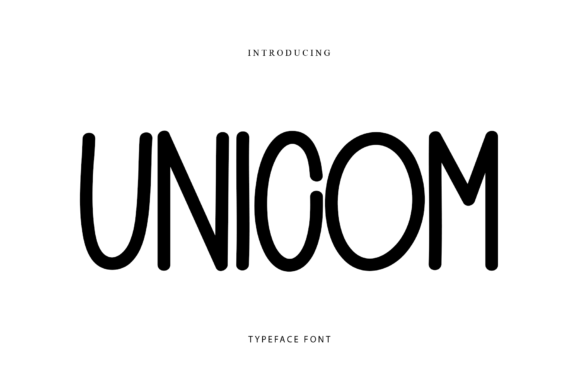
Unicom: A Bold, All-Caps Display Font
Unicom is more than just a font—it's a design choice that brings clarity, confidence, and style to any project. With its bold, all-caps structure, it offers a modern aesthetic that stands out without overwhelming the viewer. Whether you're working on a presentation, a digital design, or a handmade card, Unicom adds a touch of sophistication that feels both fresh and professional.
This font isn't about being loud; it's about being effective. Its clean lines and consistent weight make it highly readable, even at smaller sizes. This makes it ideal for headings, titles, and key messages where visual impact matters. For professionals and creatives alike, Unicom can be a powerful tool in communicating ideas with precision and flair.
Why Unicom Matters in Design
In a world filled with countless font options, choosing the right one can feel overwhelming. Unicom simplifies this decision by offering a balance between trendiness and practicality. It’s not too flashy, but it’s not plain either. This middle ground makes it versatile enough for a wide range of applications while still standing out when needed.
For designers, Unicom can serve as a go-to font for projects that require a strong visual presence. Its all-caps format ensures that every letter is equally emphasized, which can be especially useful in branding or signage where clarity is essential. When used thoughtfully, it can help reinforce a brand’s identity or highlight important information without distracting from the overall message.
Entrepreneurs and small business owners may find Unicom particularly useful for marketing materials, social media posts, or website headers. Its boldness commands attention, making it an excellent choice for headlines or call-to-action buttons. At the same time, its simplicity allows it to blend well with other design elements, ensuring that the focus remains on the content rather than the typography.
Practical Benefits of Using Unicom
One of the most significant advantages of Unicom is its ability to enhance readability. Unlike some stylized fonts that sacrifice legibility for aesthetics, Unicom maintains a clear and structured form. This makes it ideal for situations where the audience needs to quickly grasp the message, such as in presentations or informational graphics.
For educators and trainers, Unicom can be a valuable asset in creating visually engaging slides or handouts. Its bold appearance helps draw attention to key points, making it easier for students or participants to follow along. It also works well in digital learning platforms where visual hierarchy plays a crucial role in user experience.
Writers and bloggers might appreciate how Unicom can elevate the look of their content without requiring extensive design skills. By using it for section headings or featured quotes, they can add a professional touch that enhances the overall layout of their work. This can be especially beneficial for those who want to maintain a consistent visual style across multiple platforms.
Unicom in Real-World Applications
Consider a scenario where a designer is creating a logo for a new tech startup. The goal is to convey innovation and reliability. Unicom could be the perfect fit, offering a clean, modern look that aligns with the brand’s vision. Its all-caps format reinforces a sense of strength and clarity, which are essential qualities for a tech company aiming to build trust with its audience.
Another example is a small business owner preparing a promotional flyer. Using Unicom for the headline ensures that the message is immediately noticeable. It also pairs well with other design elements, allowing the owner to create a cohesive look without overcomplicating the design. This can save time and effort, especially for those who are not design experts.
For hobbyists and crafters, Unicom can be a game-changer in projects like greeting cards or custom signs. Its boldness makes it easy to read from a distance, which is important for items that will be displayed or given as gifts. It also adds a polished finish that elevates the overall quality of the work.
Who Can Benefit Most from Unicom?
Unicom is particularly well-suited for professionals who need to communicate clearly and effectively. Marketers, for instance, can use it to create eye-catching headlines that stand out in crowded digital spaces. Its versatility allows it to work in both print and online formats, making it a reliable choice across different mediums.
Freelancers and independent creators often rely on strong visual elements to showcase their work. Unicom can help them present their portfolios or client proposals in a way that feels professional and cohesive. It also supports creative expression by offering a unique yet functional typeface that complements various design styles.
Small business owners and startups may find that Unicom helps them establish a strong brand presence. By using it consistently across marketing materials, websites, and social media, they can create a unified look that strengthens brand recognition. This consistency can lead to greater customer trust and engagement over time.
Limitations and Considerations
While Unicom is a strong choice for many applications, it may not be the best fit for every project. For instance, in long-form text such as body paragraphs or detailed reports, its all-caps format could become fatiguing for readers. In these cases, it’s better to pair it with a more traditional font that supports extended reading.
Users should also consider the context in which they’re using the font. While it works well for headings and titles, it may not be appropriate for formal documents or academic writing where a more subdued typeface is expected. Understanding the tone and purpose of the content is key to making the most of Unicom’s strengths.
Additionally, it’s worth exploring other fonts to see how they compare in terms of readability, style, and functionality. Every project has unique requirements, and what works for one may not be ideal for another. Testing different options can help ensure that the final result meets both aesthetic and practical goals.
Final Thoughts on Unicom
Unicom is more than just a font—it’s a design solution that offers clarity, strength, and style. Its bold, all-caps format makes it ideal for a wide range of applications, from presentations to marketing materials. By focusing on practical benefits and real-world use cases, it becomes clear that Unicom can be a valuable addition to any designer’s or creator’s toolkit.
Whether you’re looking to enhance your visual communication or simply want a font that feels modern and professional, Unicom provides a balanced approach that delivers results. With its combination of trendiness and usability, it’s a choice that can help you achieve your creative and professional goals with confidence.